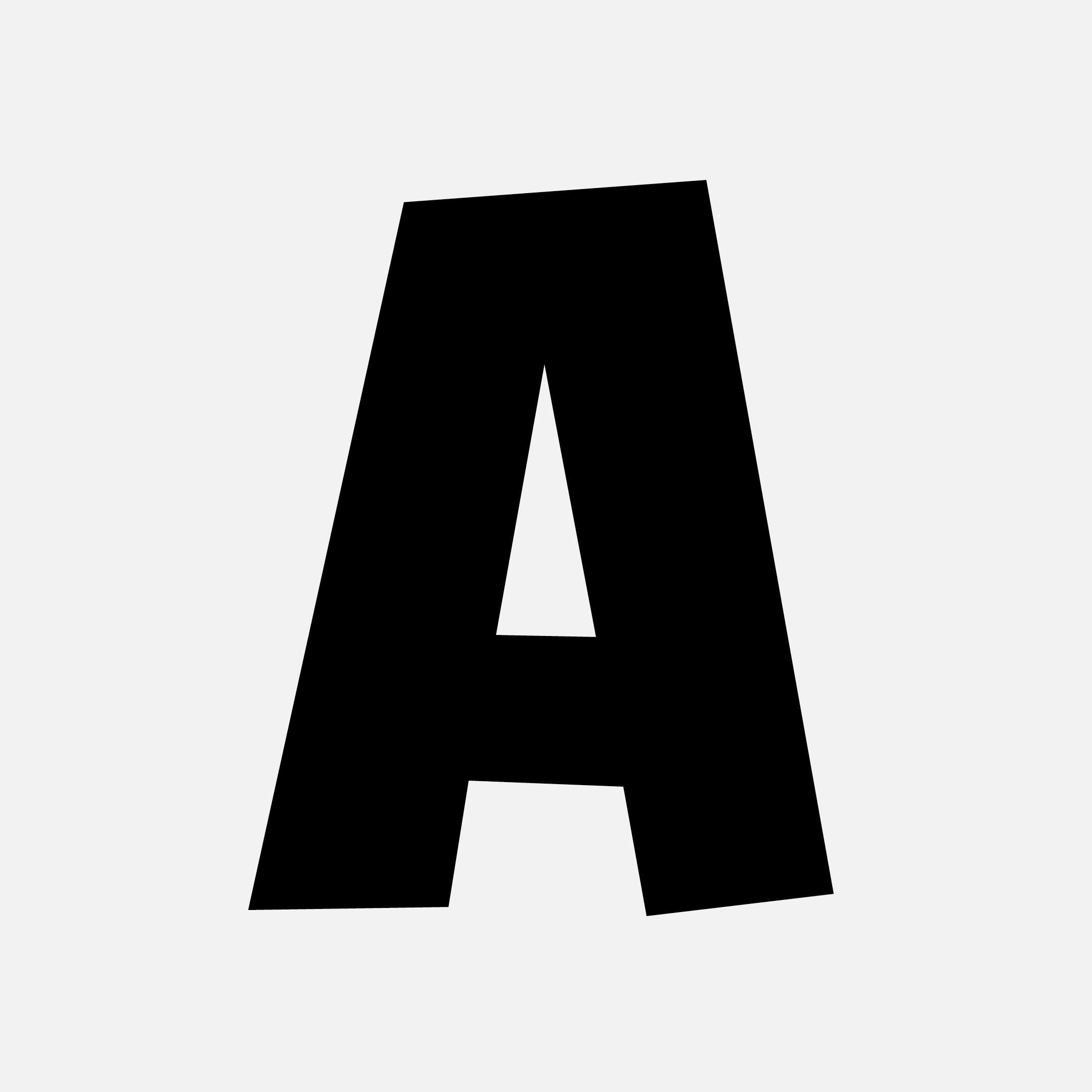
The key inspiration for the Orgovan typeface family was a template published in an old Czechoslovak lettering guide Písmo ve výkladní skříni (Typefaces in the Shop Window) by Zdeněk Němeček, 1961, Vydavatelství obchodu. It featured an example of a quickly drawn letters created using a broad brush. After compositional adjustments and the addition of characters to the set, the basic Brush style was created—a bold, poster-typeface with a distinctive, unmistakable character. To expand the range of emotional moods, a palette of additional styles was developed to span several decades. Flower Power will remind you of the Woodstock era, Punk evokes the atmosphere of 1970s alternative music, Hairy brings back memories of the hairy chests of 1980s pop stars, and the fluid Fat Cap will remind you of vibrant spray-painted graffiti, as if it were yesterday.